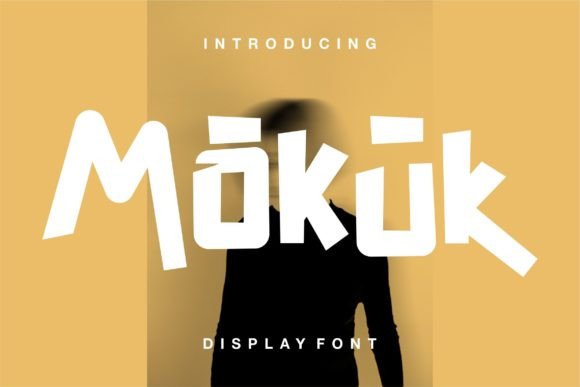
Mokuk Font
Font Name : Mokuk Font
Author : Vunira
Introducing Mokuk Font, the epitome of style and sophistication. This modern and bold display font exudes an urban edge that will captivate your audience.
Crafted with meticulous attention to detail, Mokuk Font is designed to elevate your creations to new heights. Its sharp lines and geometric shapes create a striking visual impact that commands attention.
Whether you're crafting elegant invitations, unforgettable greeting cards, or eye-catching branding materials, Mokuk Font will transform your words into works of art. Unleash your creativity with this versatile font, perfect for:
- Adding a touch of sophistication to invitations and greeting cards
- Creating unforgettable branding materials that leave a lasting impression
- Designing sleek business cards that showcase your professionalism
- Inspiring quotes and posters that captivate your audience